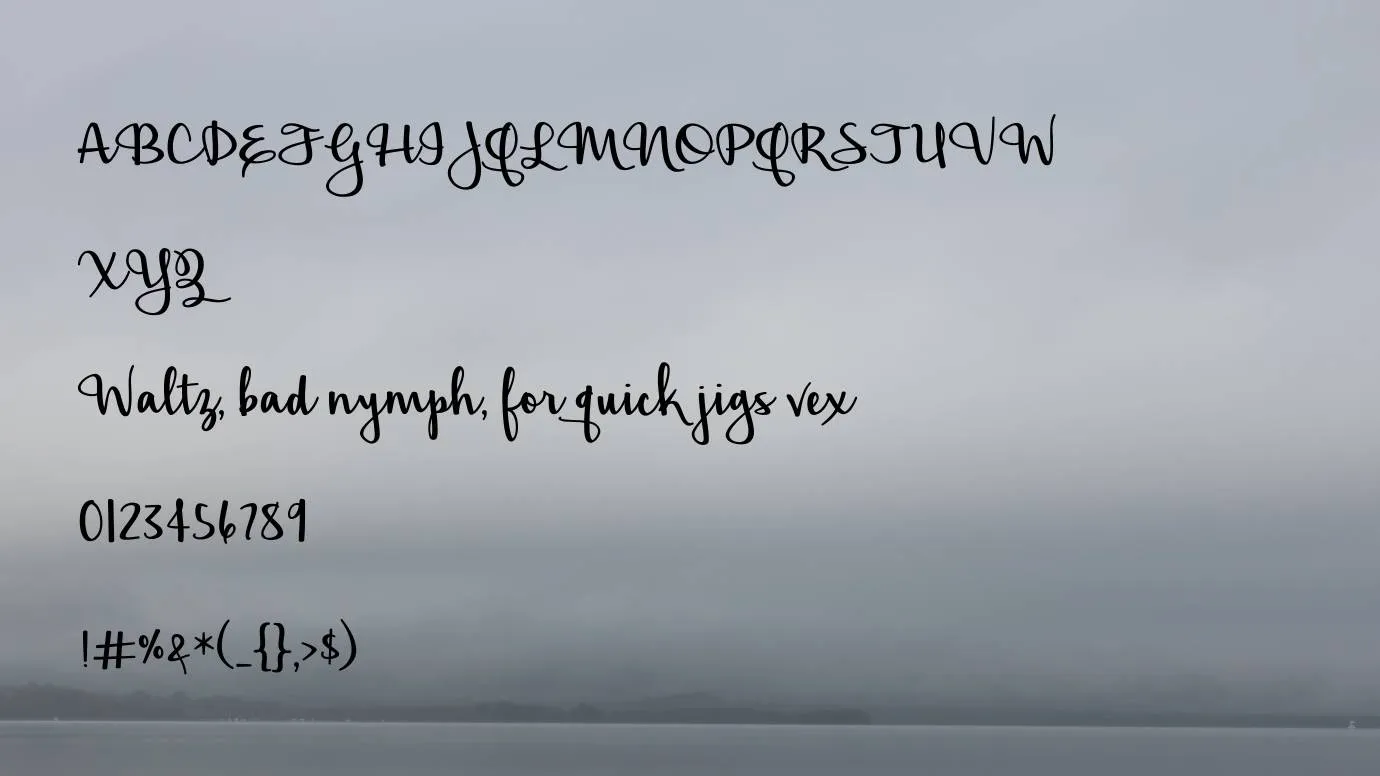
Hickory jack Font is a very interesting and classy typeface. It gives a look of a script written by brush in hands. It gives a handwritten script look. That’s why it belongs to the category of handwritten brushed typefaces. The font family contains 3 styles 2 weights. Which includes regular and Light regular. At the beginning of the creation of the typeface, the designer thought that the design looked old. But in the end, the output was amazing.
You can use this typeface in Logo designs, Posters and Book Covers, Branding projects, Product packaging, Website and blog designs, Certificate design, Templates and Emblems App development, Video games and Movie trailers, T-shirt and Mug designs, Social Media Post, Promotional Projects, Printing projects. Due to its sleek, stylish, and sharp look, it is very effective. You can also use this in your business cards and greeting cards.
Designer of Hickory jack Font
The font family contains 2 weights including Regular and Light Regular. It includes uppercase and lowercase letters, numbers, and other symbols.
View of Hickory jack Font
| Name | Hickory Jack Font |
| Designer | Brittney Murphy |
What Type of Font Is Hickory jack?
It belongs to the category of handwritten brushed typefaces. The font family contains 3 styles 2 weights. Which includes regular and Light regular.
What’s the Closest Font to Hickory jack Font?
The Closest Font to this typeface is the Jennifer Lynne font. You can use this typeface as a free alternative to the Hickory font.
Can I Use Hickory jack for My Logo?
Yes, it is a good choice to use this font in your logos. it is a perfect typeface for logo designs, posters, banners, etc.
Can I Use Hickory jack Font on My Website?
You can use this typeface in your logo and website design. It will add more attractiveness to your webpage.